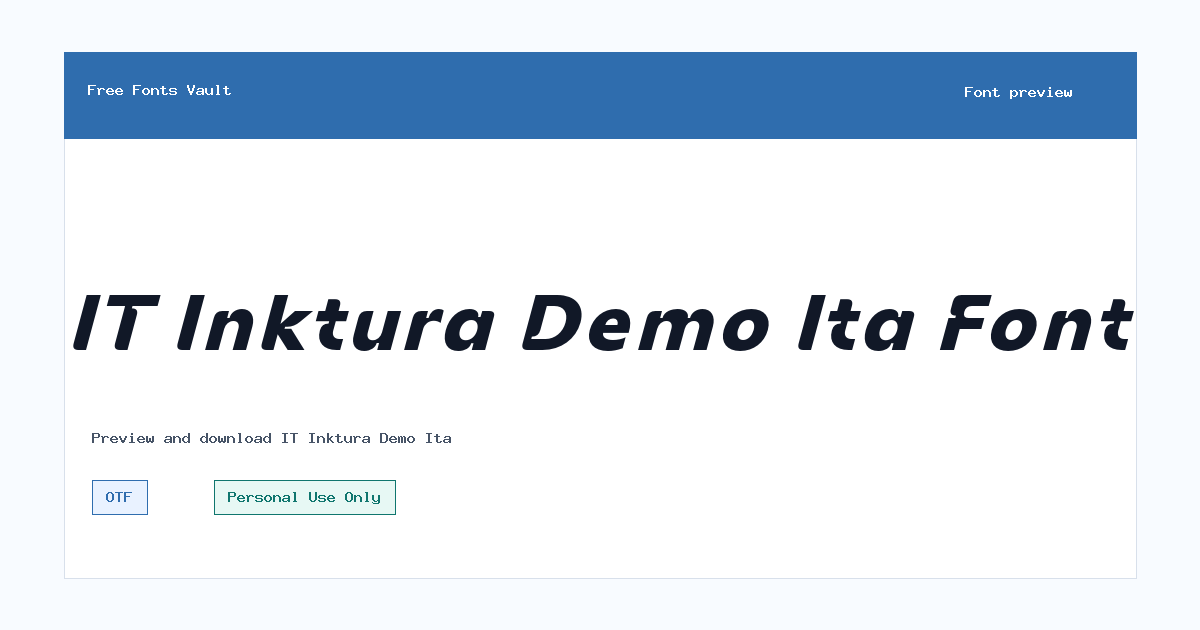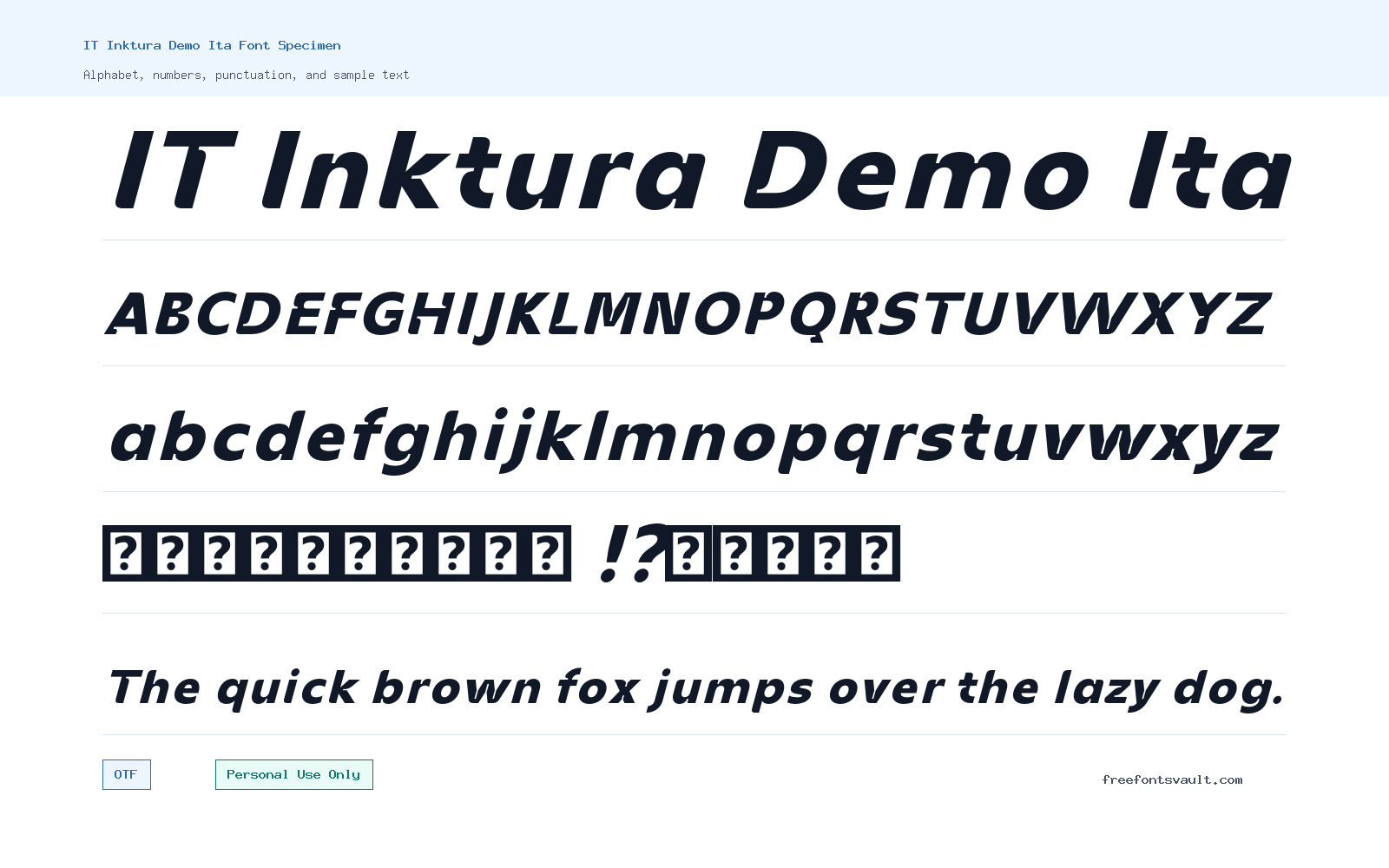
IT Inktura Demo Ita
- Designer Indotype
IT Inktura Demo Ita font.
IT Inktura Demo Ita is a personal-use italic demo font with an OTF file for easy previewing and design trials. It is a good choice when you want a slanted sans serif look for short text, but the license should be checked carefully before any public or paid project.
About IT Inktura Demo Ita
IT Inktura Demo Ita is listed as an italic, regular-weight font file in OpenType format. The name and license text identify it as a demo version, so it is best treated as a trial font rather than a finished commercial asset. Its italic style gives words a forward-leaning rhythm, which can help short headings, labels, pull quotes, or decorative text feel more active than an upright cut. Because only one italic variant is listed, it is not a full family page with multiple weights or matching roman styles.
- Single demo variant, useful for short display text, accents, and draft layouts.
- Personal logo mockups, quote graphics, title treatments, and social media drafts.
- Testing an italic sans serif accent alongside a cleaner upright font.
The designer is listed as Indotype, with Indotype Foundry named as the foundry.
Is this a full font family?
Only one variant is listed here: an italic, regular-weight demo font. There is no matching upright or bold variant shown on this page.
What is IT Inktura Demo Ita best used for?
It is best for personal-use short text such as headings, quote graphics, logo drafts, labels, and other display settings where an italic accent is useful.
Who made IT Inktura Demo Ita?
The font is credited to Indotype, with Indotype Foundry listed as the foundry.